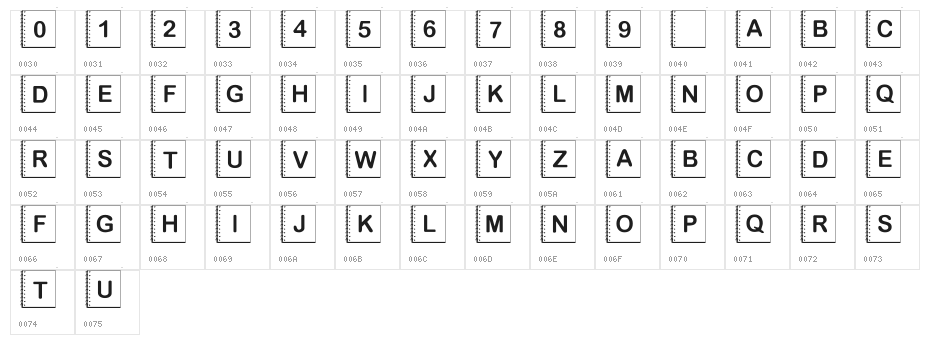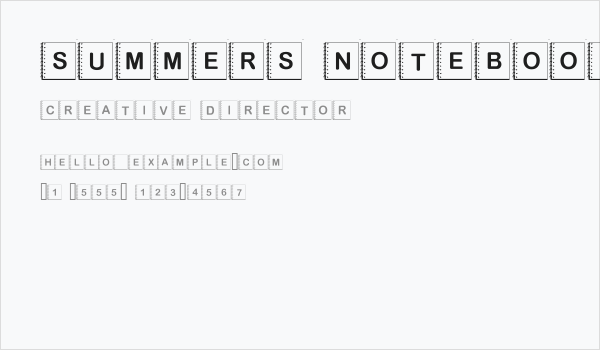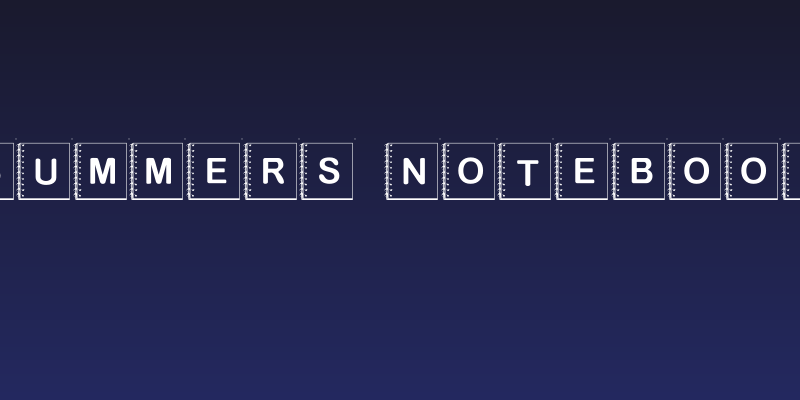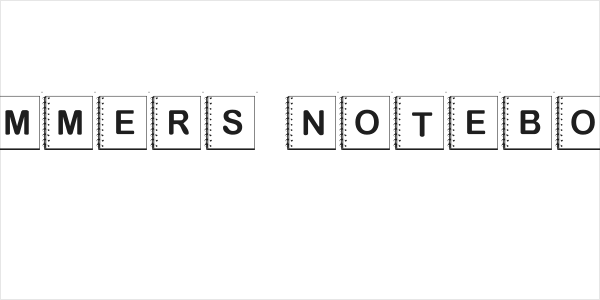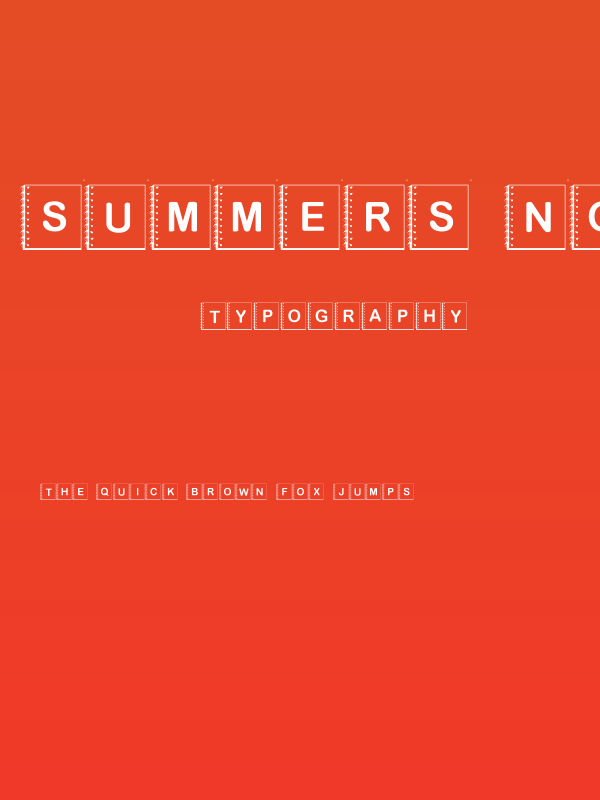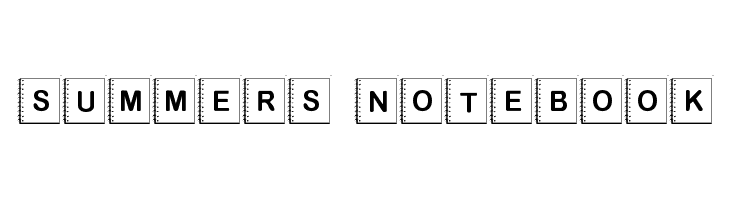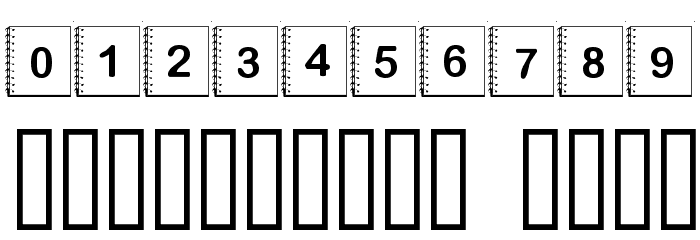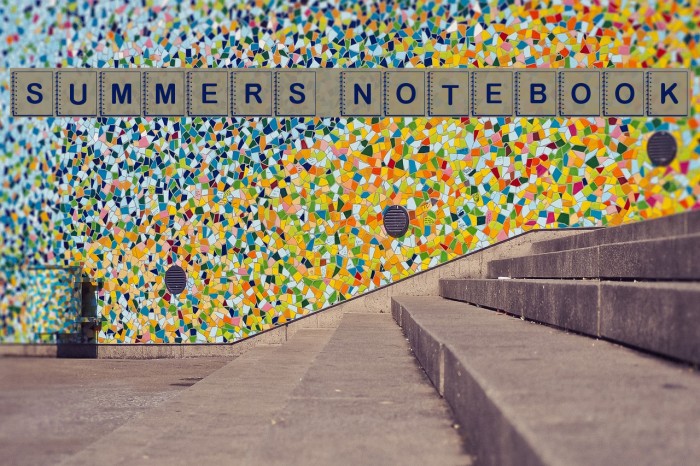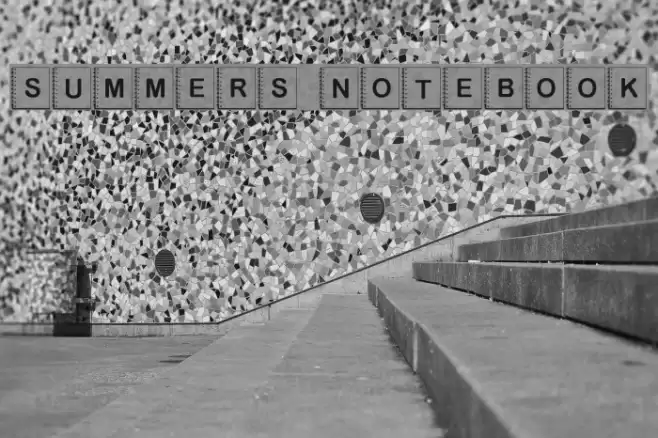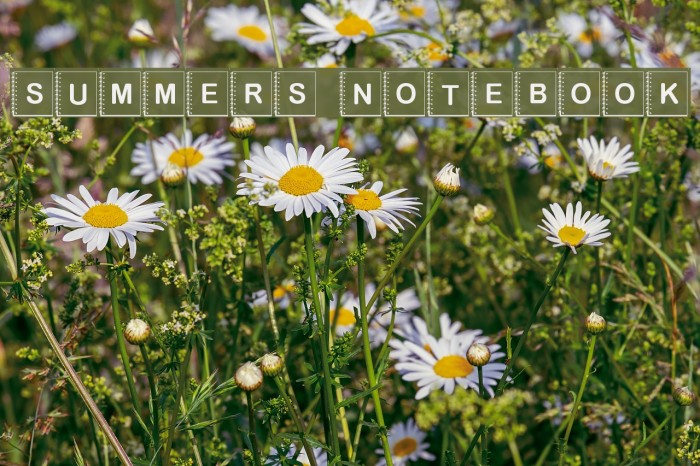
Summers Notebook Font
Summers Notebook Description
This font features a playful and creative design, reminiscent of letters written on notebook paper. Each character is enclosed in a square with a dotted line on the left, mimicking the appearance of a spiral-bound notebook. The letters are bold and clear, with a modern sans-serif style that ensures readability. The numbers and special characters follow the same design, maintaining consistency across the font. This unique style adds a touch of whimsy and nostalgia, making it ideal for projects that aim to evoke a sense of creativity and fun.
| Overall Style | Playful, Creative |
| Use Case | Headlines, Logos, Creative projects |
| Proposed Projects | Ideal for educational materials, children's books, creative projects, and playful branding. |